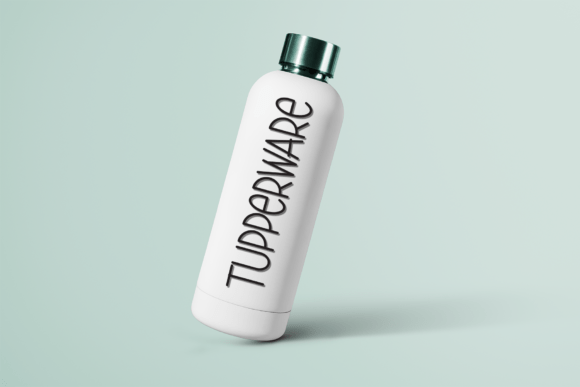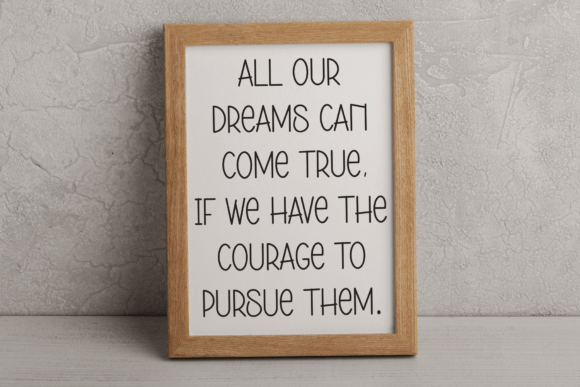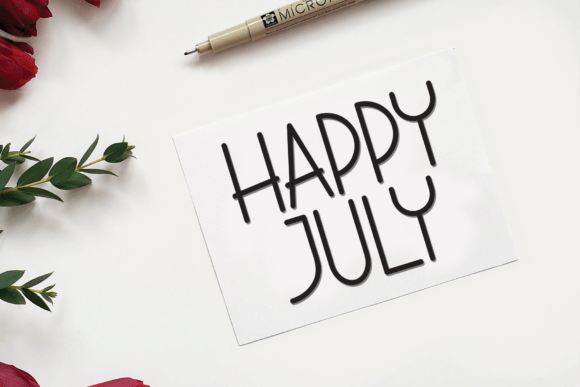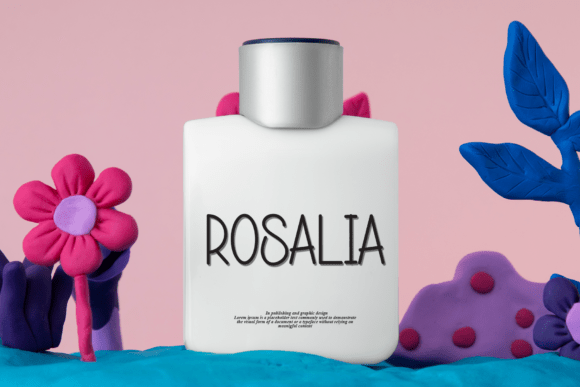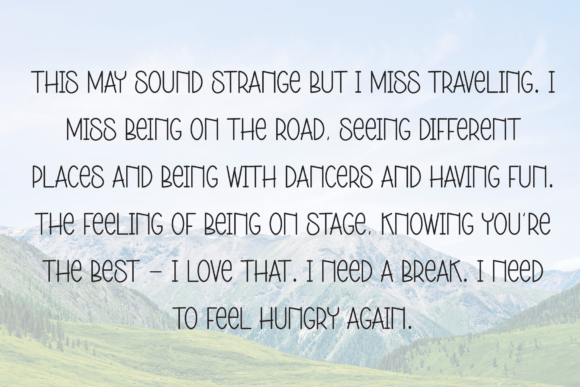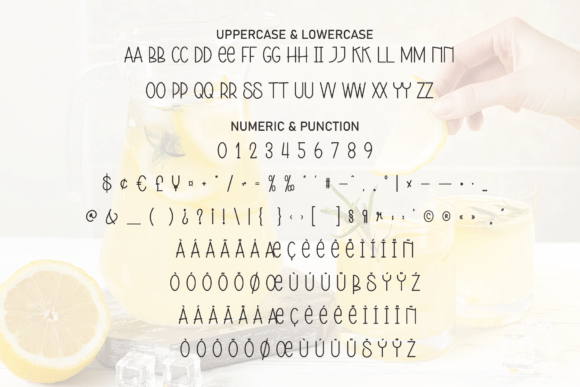
Introduction to Simple Lemonade Font
Remember that moment when a single font choice made all the difference in your creative project? It’s a feeling of excitement and satisfaction that comes with knowing you’ve found the perfect design resource. For designers, the right font can elevate a project from ordinary to extraordinary, and that’s exactly what the Simple Lemonade Font delivers.
With its clean lines, balanced letterforms, and subtle rounded edges, this font combines simplicity with a friendly, approachable vibe that’s hard to resist. Whether you’re working on a branding project, crafting a compelling headline, or designing packaging for a new product, the Simple Lemonade Font is an ideal choice. Its crisp structure and versatile style make it a valuable asset for any designer looking to add a warm and inviting touch to their work.
Key Features of Simple Lemonade Font
- Simple and elegant font style with a transparent background, ideal for various design applications.
- Font size: 1000 glyphs, covering a wide range of characters and languages.
- Unique characteristic: The Simple Lemonade Font features a modern and playful feel, making it perfect for branding and advertising projects.
Honest Review: Simple Lemonade Font
As a designer, I’m always on the lookout for high-quality design resources to enhance my creative projects. Recently, I had the chance to work with the Simple Lemonade Font, and I’m excited to share my honest review.
- Unique and playful design style that’s perfect for modern branding and packaging
- Includes a transparent background, making it easy to overlay on any image or background
However, I did encounter some limitations when working with the font. Here are a few things to keep in mind:
- Only includes uppercase letters, which may be a limitation for designers who need to create titles or headings
- No support for bold or italic styles, which may limit its use in certain design applications
Overall, I’m impressed with the Simple Lemonade Font’s unique design style and high-quality files. While it may have some limitations, I believe it’s a great resource for designers looking to add a playful touch to their creative projects.
Use the Simple Lemonade Font to create a cohesive brand identity across your marketing materials. Experiment with different font sizes, colors, and styles to add visual interest to your designs.
The Simple Lemonade Font is perfect for creating eye-catching labels, signage, and packaging designs. It’s also great for digital projects, such as social media graphics, email marketing campaigns, and website headers.